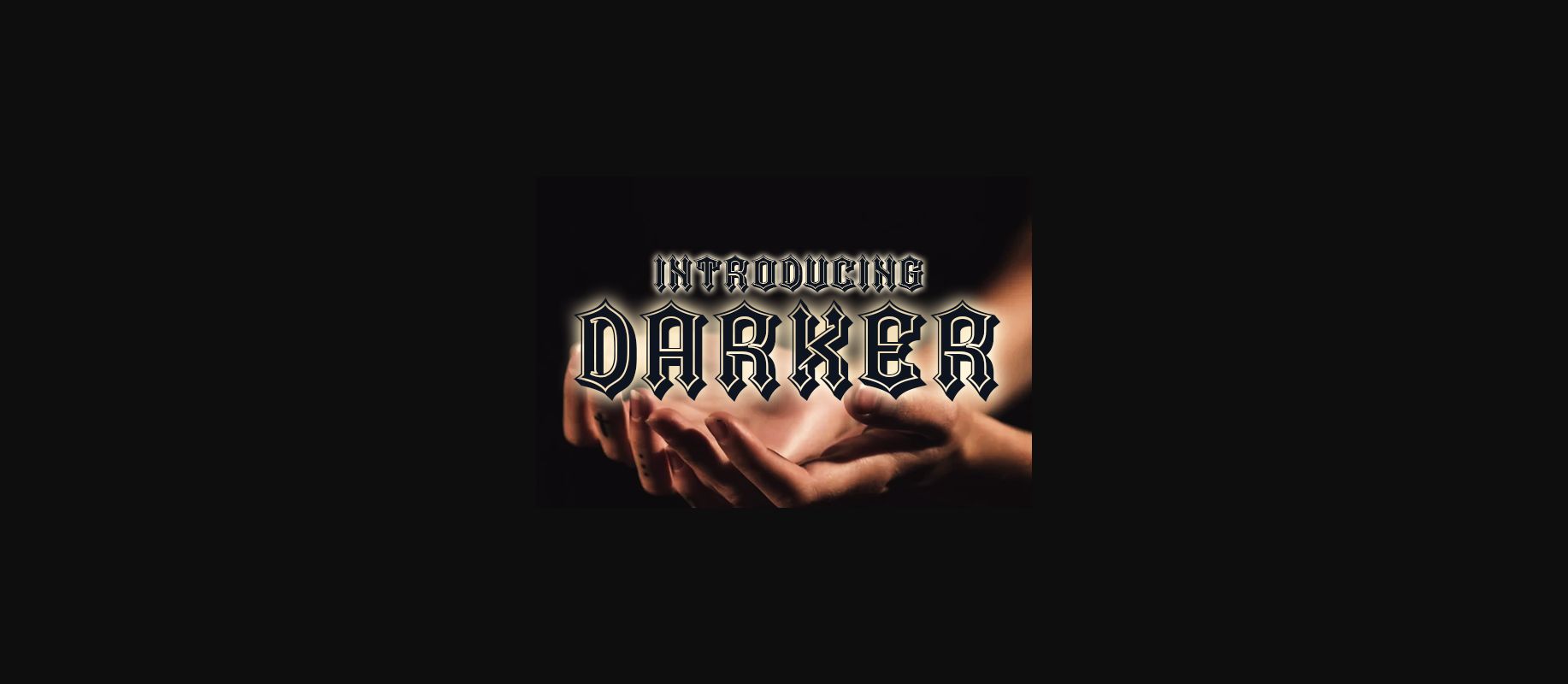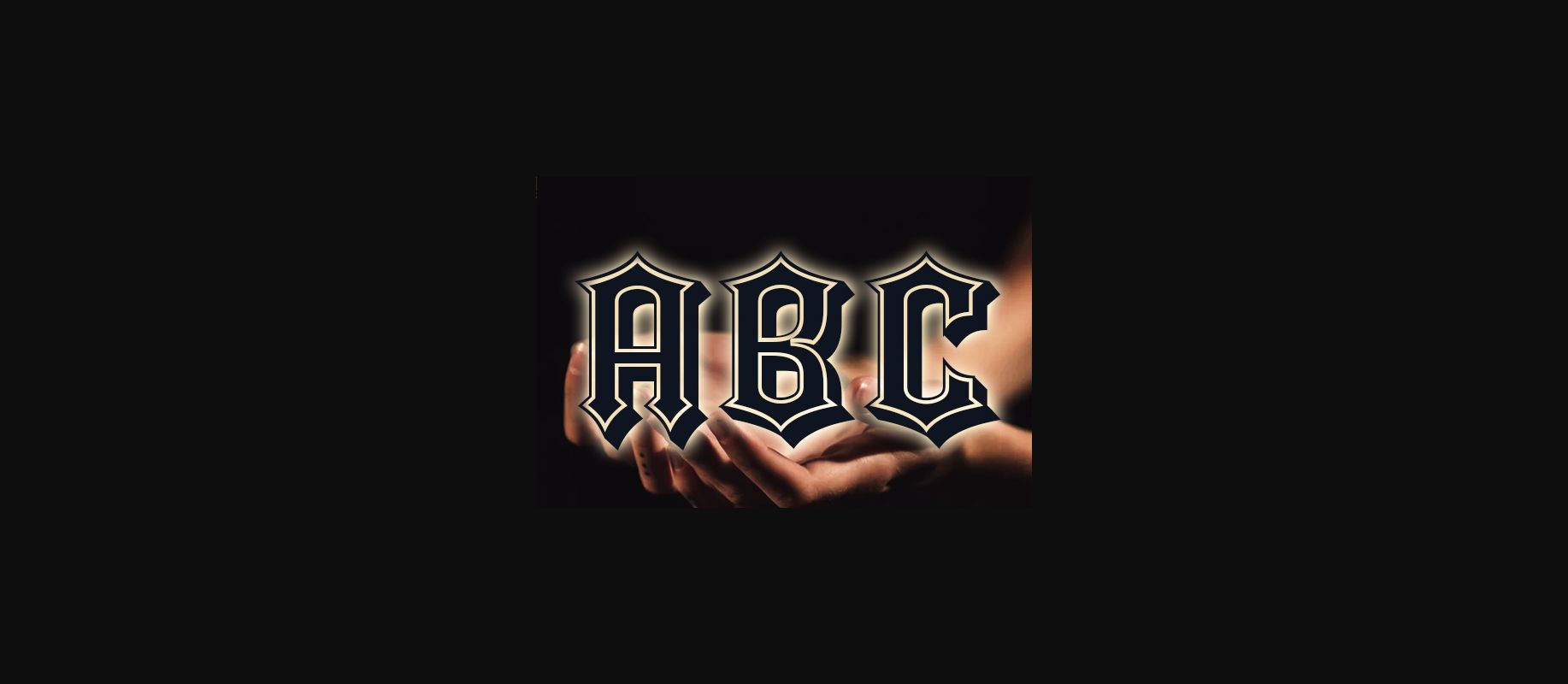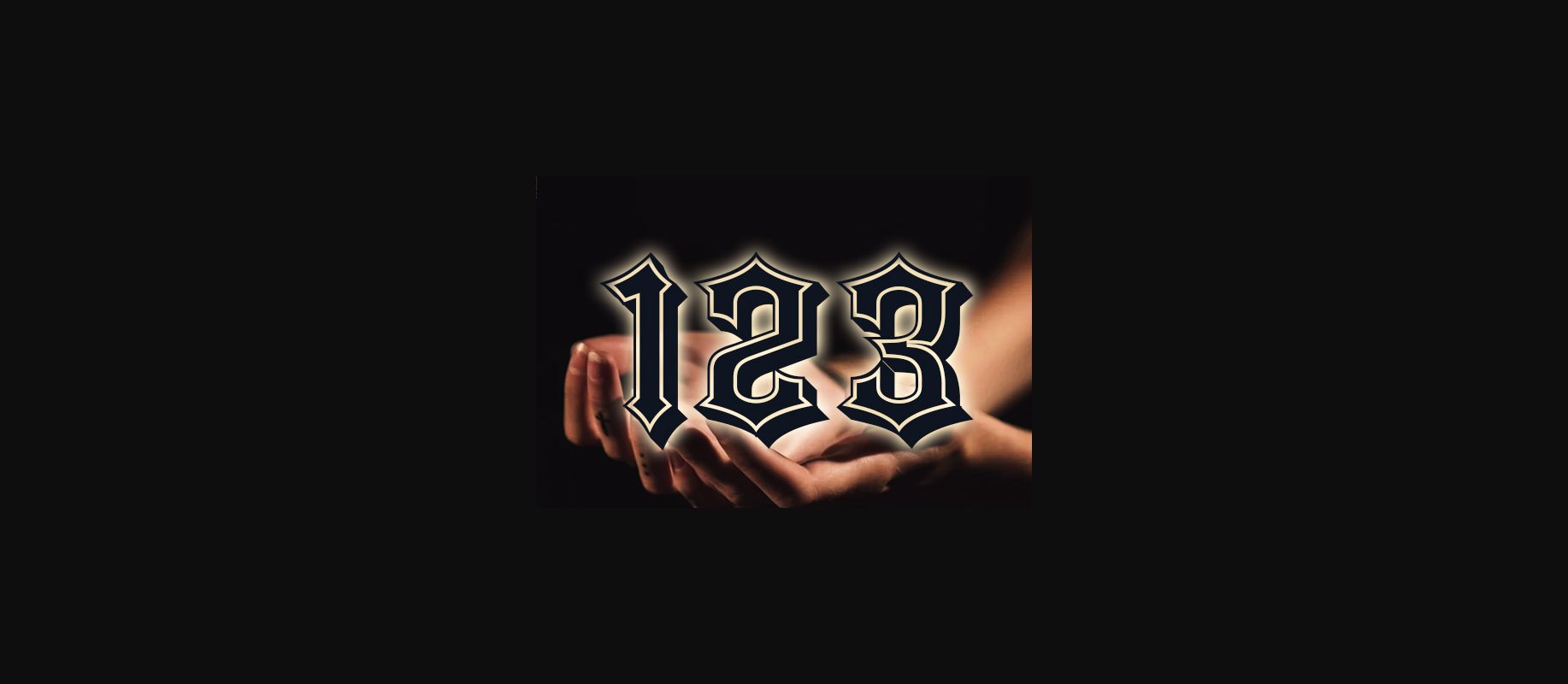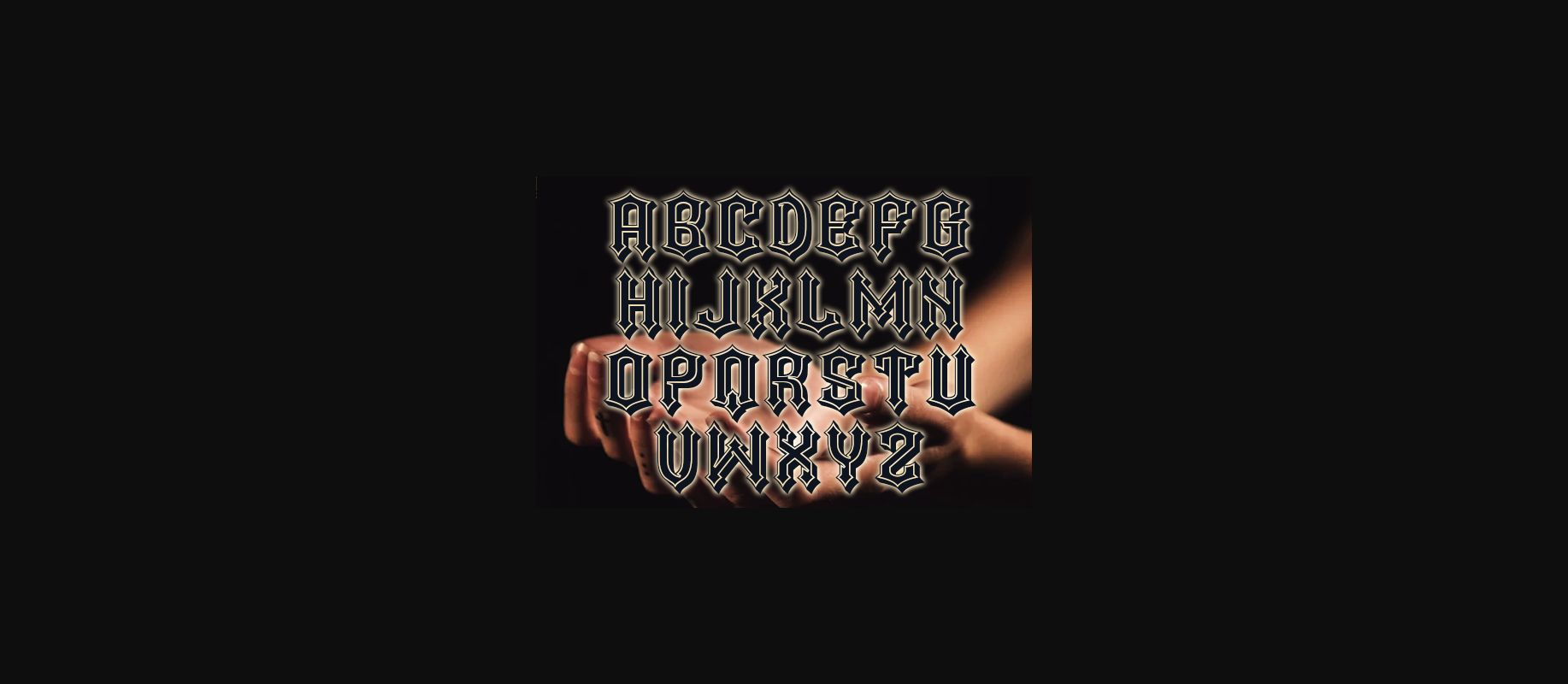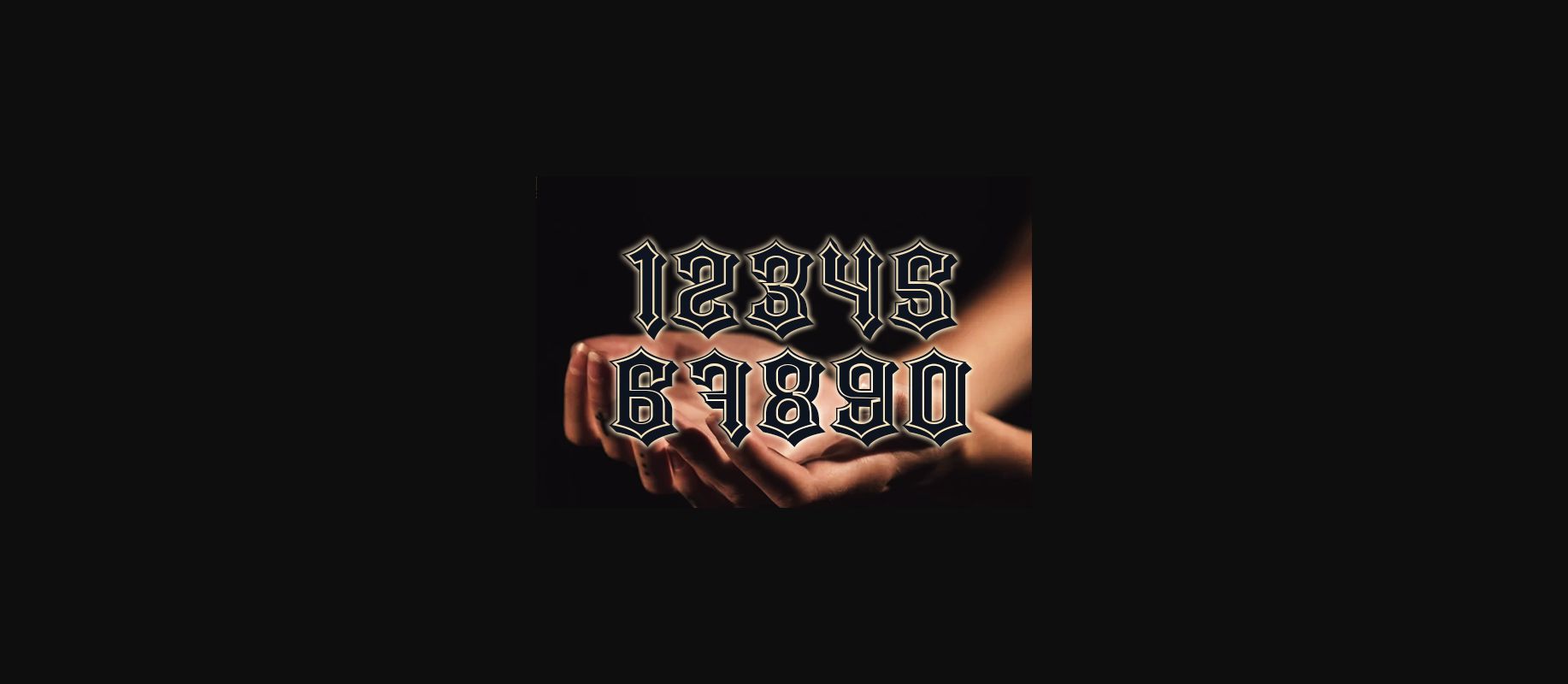
About Darker Font
Darker is an awesome decorative font that will look stunning on any poster, flyer, or print. Use this font for your designs and explore its endless possibilities.